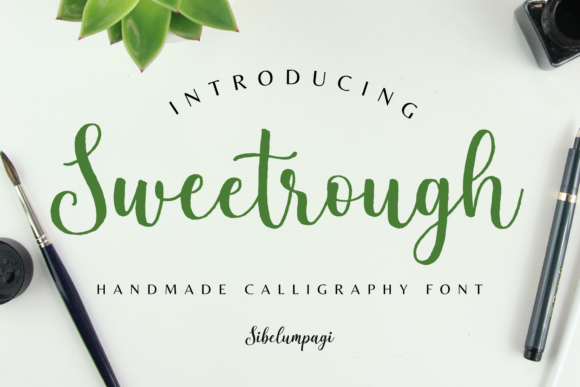
Step into the world of Sweetrough Font, a captivating collection of scripts that will redefine your creative projects with its natural lettering and authentic vibe. Immerse yourself in the charm of handwritten strokes and bring a touch of genuine beauty to your designs.
With Sweetrough, you'll embark on a journey of boundless creativity, inspired by the allure of nature's flow. Its meticulously crafted characters exude a sense of spontaneity and playfulness, seamlessly capturing the essence of hand-drawn artistry.
Whether you're a seasoned designer or a novice lettering enthusiast, Sweetrough's versatility will ignite your imagination. Its diverse styles lend themselves effortlessly to an array of projects, from heartfelt wedding invitations to captivating logos that leave a lasting impression.
Embrace the allure of Sweetrough and let your creativity run wild. Dive into a world of boundless possibilities, where imagination knows no limits and authenticity prevails. Unleash the potential within your artistic vision and captivate your audience with the genuine beauty of Sweetrough.